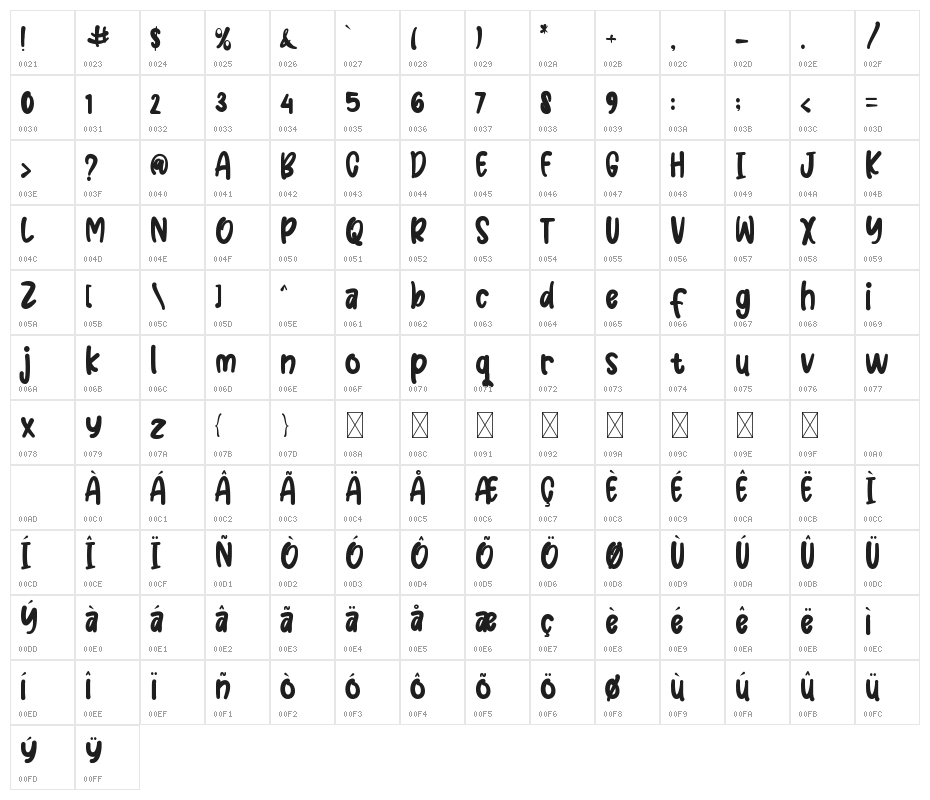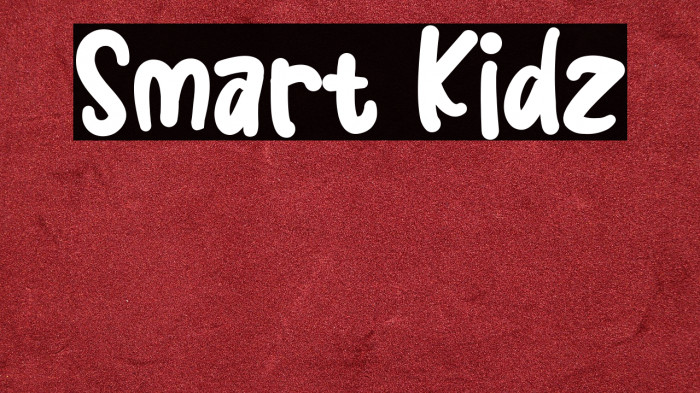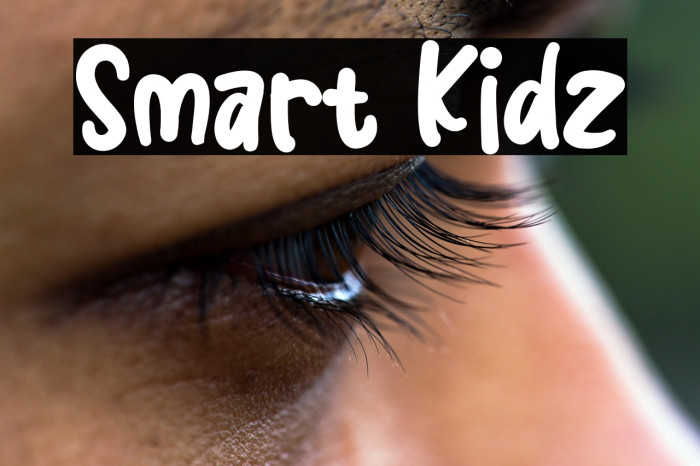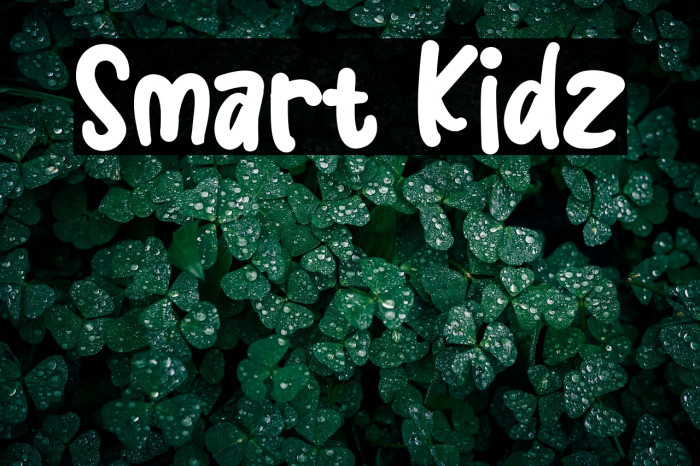
Smart Kidz Font
Smart Kidz Description
This playful and energetic font features bold, rounded characters with a hand-drawn feel. The letters are slightly irregular, adding a whimsical touch that is both approachable and friendly. The uppercase and lowercase letters maintain a consistent style, with smooth curves and a casual appearance. Numbers and special characters are included, matching the overall playful aesthetic. This font is ideal for projects that require a fun and informal tone, such as children's books, playful branding, or creative posters.